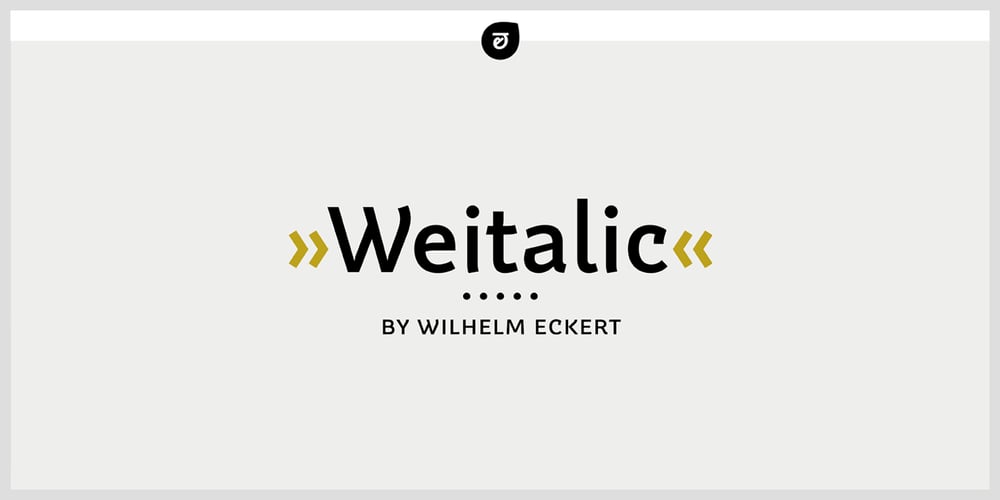
Weitalic
Weitalic font
Weitalic Font Family was designed by Wilhelm Eckert and published by Wilhelm Eckert. Weitalic contains 16 styles and family package options. The aim of the project was to create a new type family for corporate and editorial design. The resulting humanist sans serif Weitalic has strict and angular strokes, but at the same time possesses a calligraphic look – an interplay of contrasts. Thanks to the very eye-catching features the result is a distinctive typeface that looks good in both the headline and the area of body text. With its 8 weights with matching italics and numerous OpenType features Weitalic is prepared for professional and complex typographic work. The fonts have an extended character set to support Central and Eastern European as well as Western European languages.